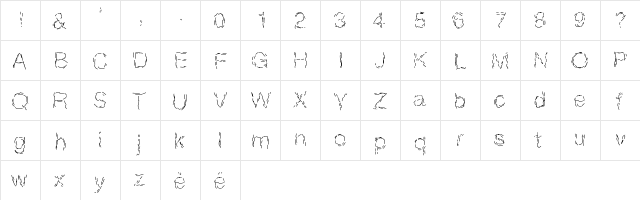
Paille Medium Font Preview
Paille Medium
Design Context for Paille Typeface
Paille is a composed and adaptable typeface that performs quietly and consistently across a wide range of design contexts.